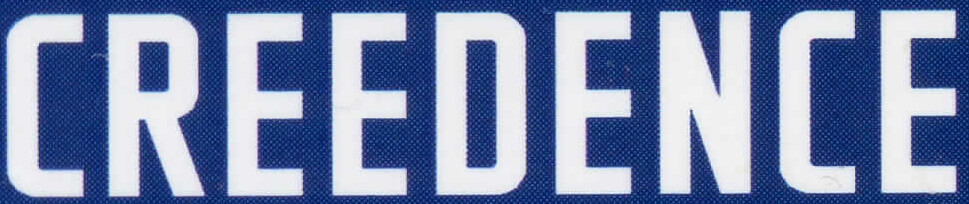
Need help with the attached fonts. Every time I think I’ve found it, a letter shape is wrong. I’ll keep on searching, but y’all always come through in a pinch, so I’m asking for some assistance!! Free downloads are preferred. Thank you in advance!
CREEDENCE is Space Race Bold, by Comicraft. ENERGY SERVICES is very similar to Lulo or Avenir, but is not them.